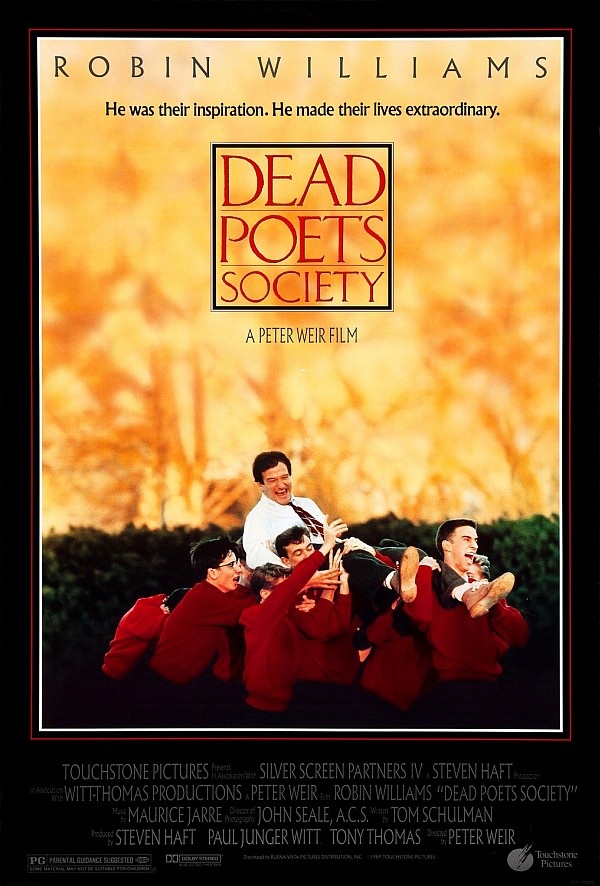
Dead Poets Society Font
DramaDead Poets Society is a 1989 American drama film directed by Peter Weir and starring Robin Williams. The film is set at an all-boys preparatory school and follows the story of an English teacher who inspires his students to think for themselves and live life to the fullest.
The film title on the poster is set in Classic Roman, a capitalized headline typeface inspired by Roman inscriptions. The tagline "He was their inspiration. He made their lives extraordinary" above the title is written in Albertus.